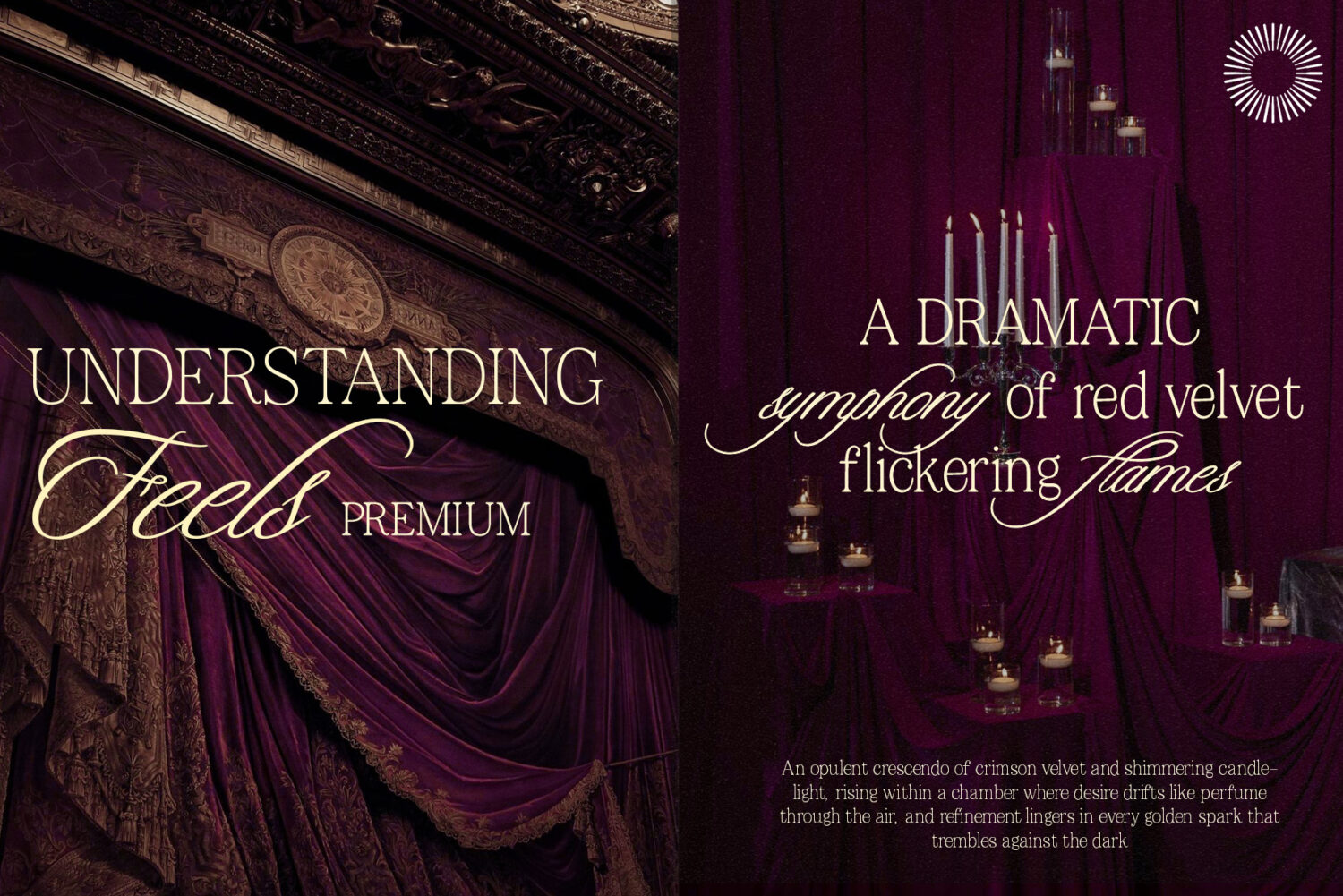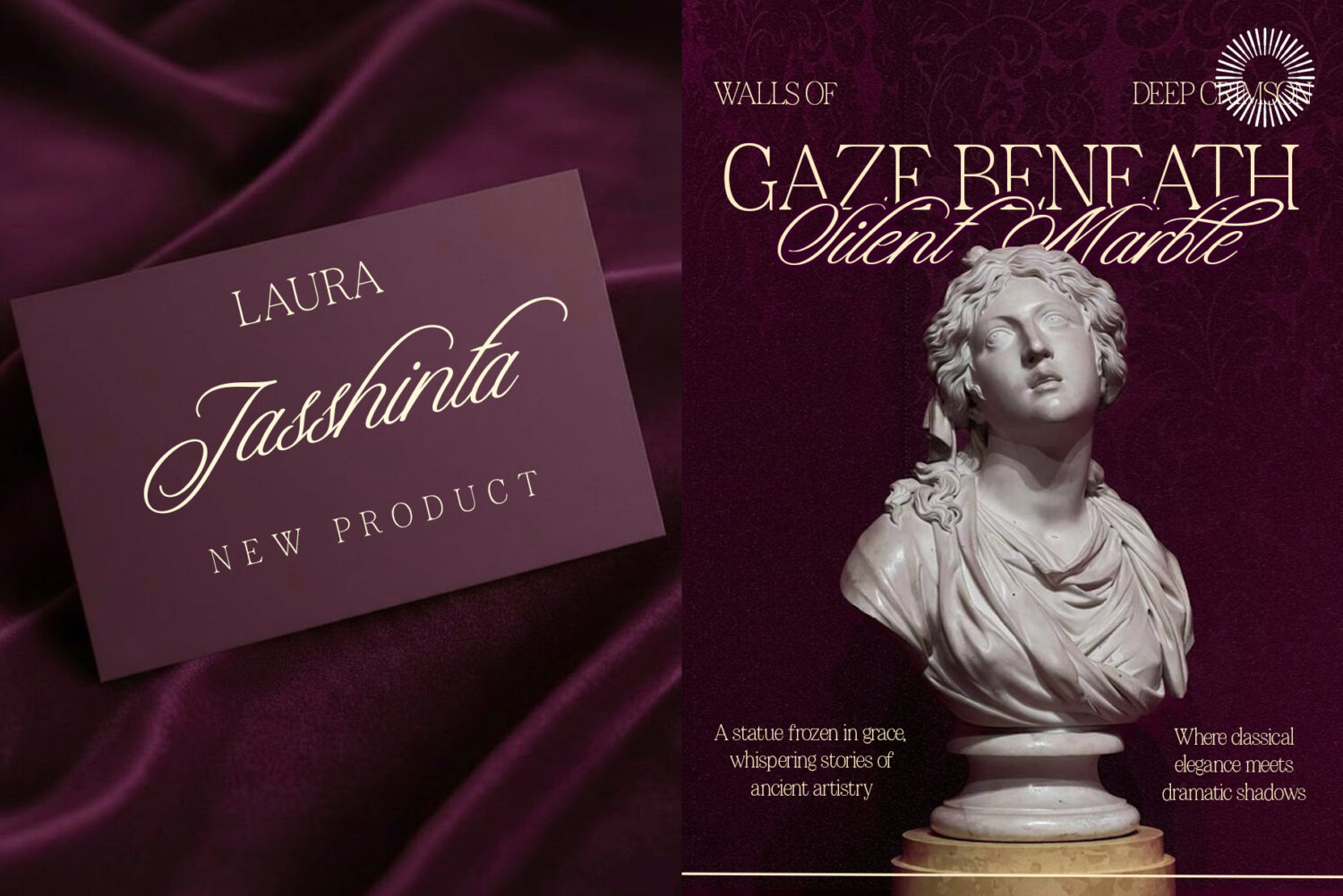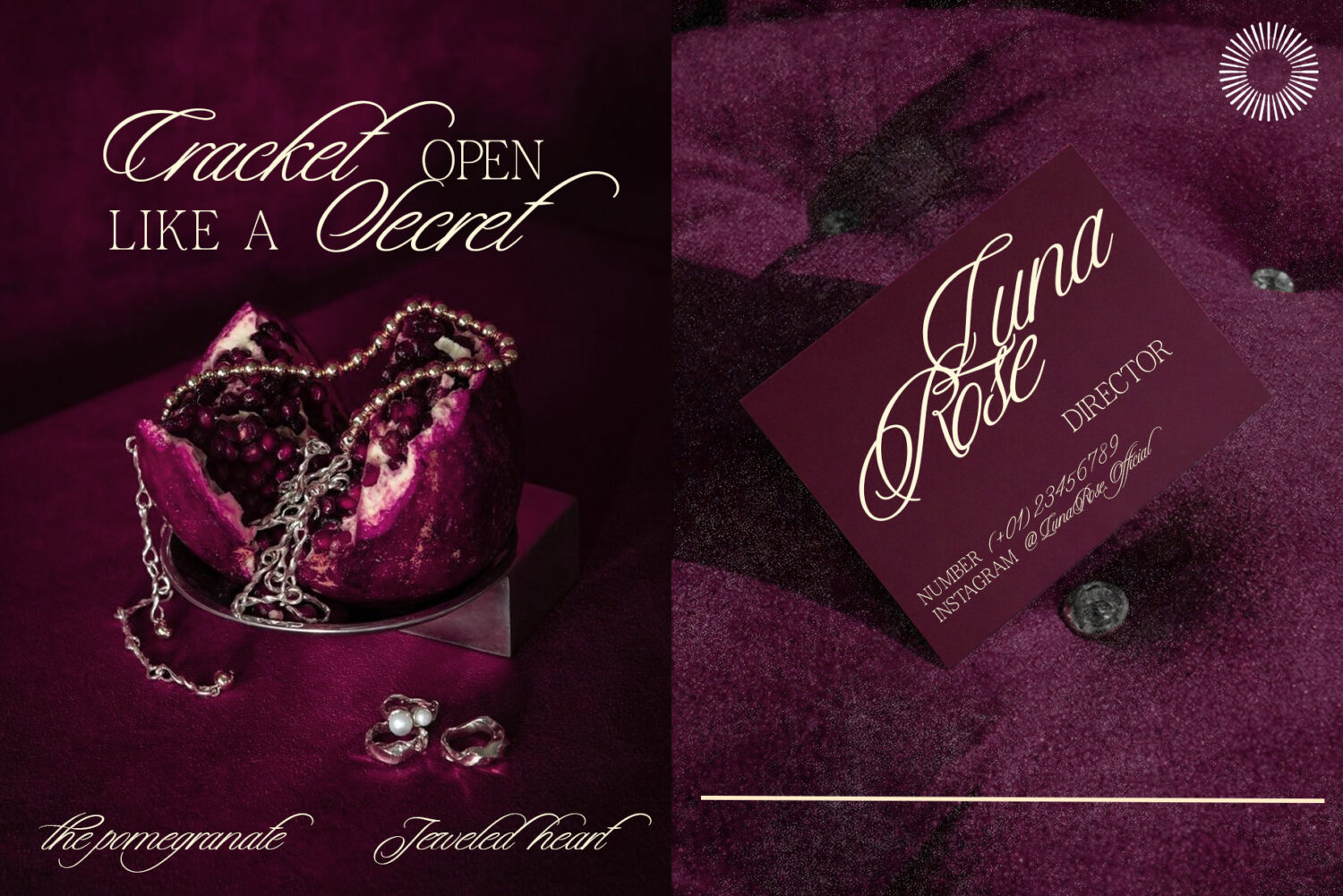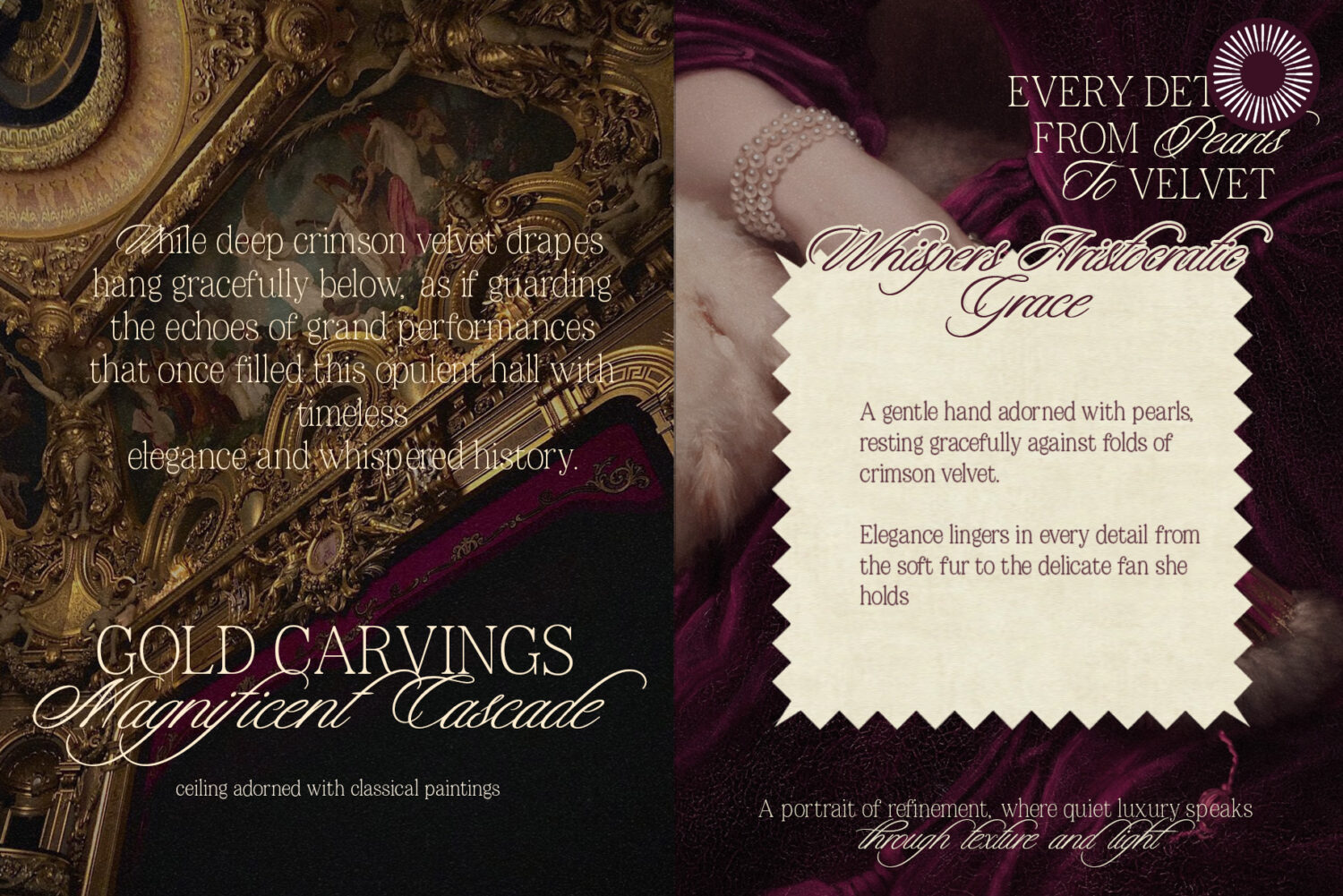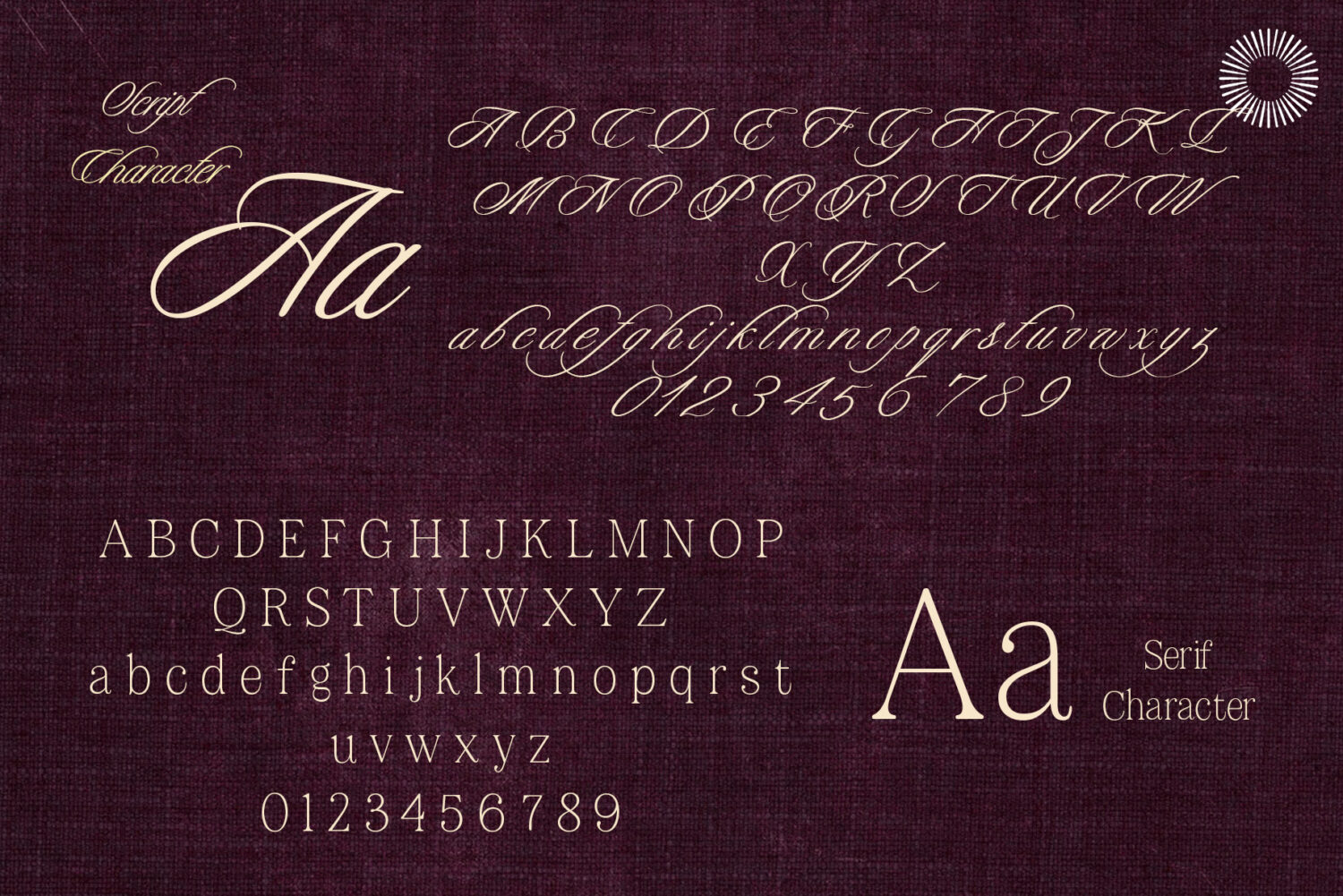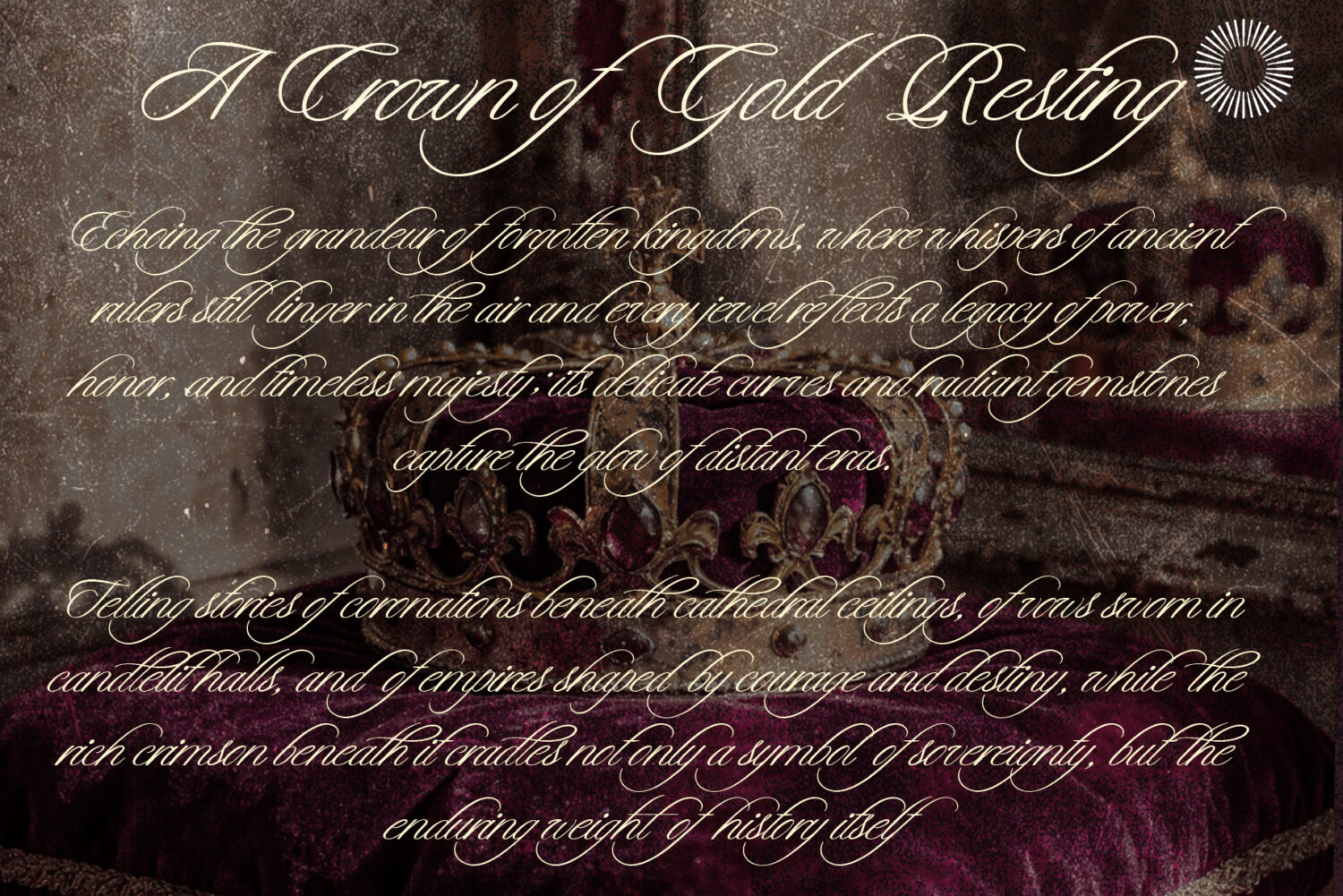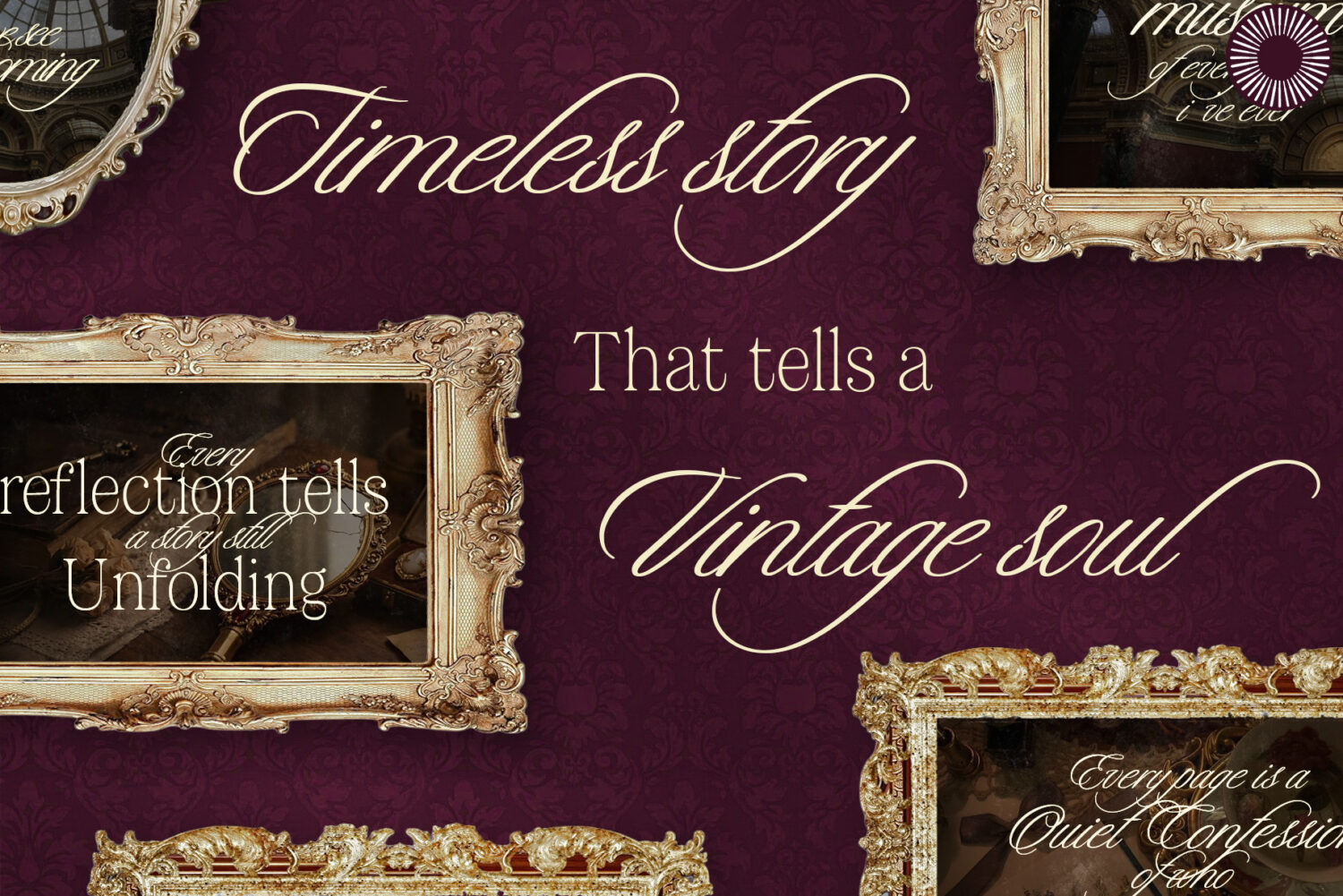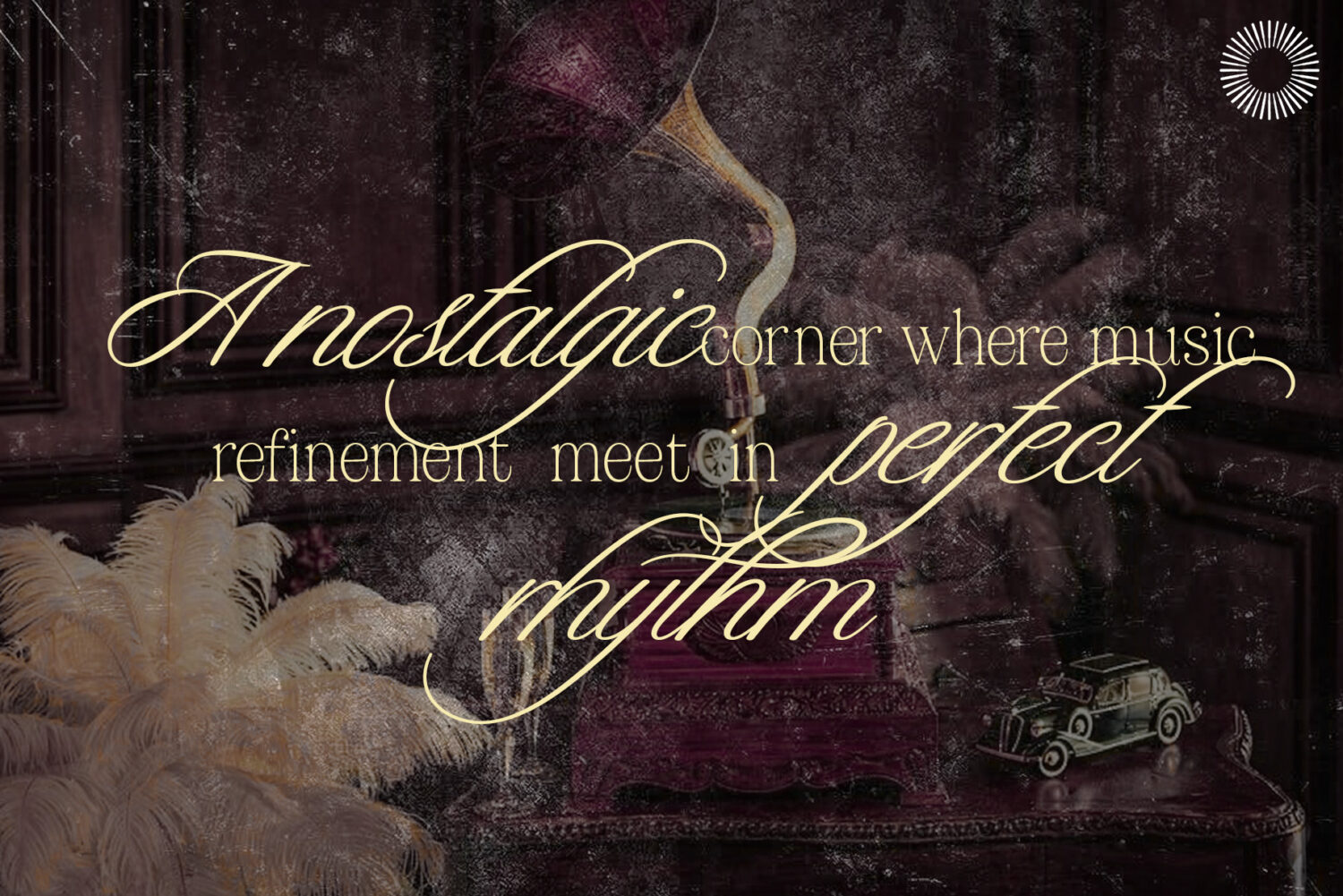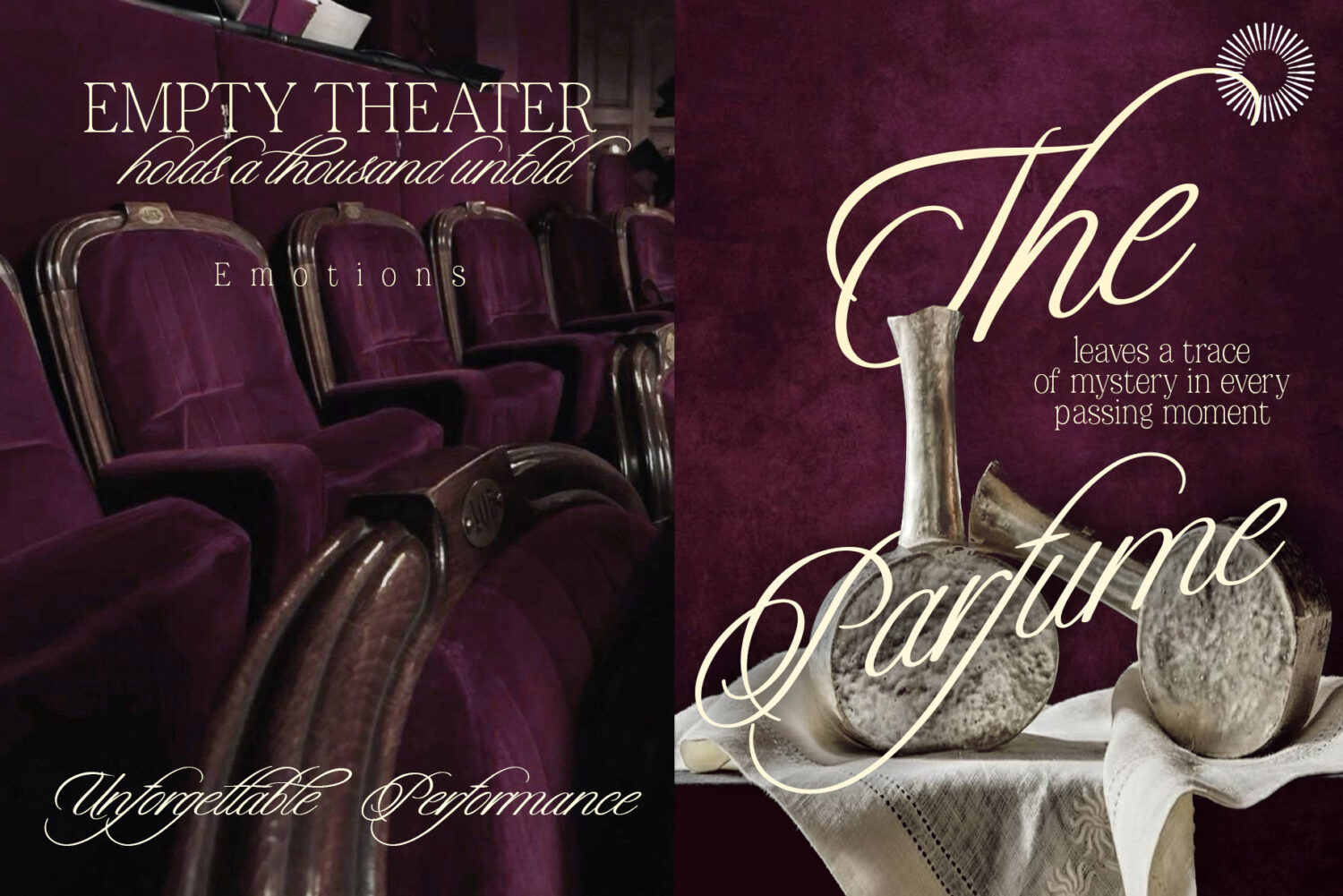
Virelle Essence - Script
Virelle Essence - Serif
Virelle Essence – Elegant Font Duo
Virelle Essence is a graceful font duo that blends a flowing handwritten script with a refined serif companion. Designed to capture warmth and timeless elegance, this pair creates a harmonious balance between expressive curves and structured letterforms. The script brings softness and personality, while the serif adds clarity and sophistication making them perfect together or beautiful on their own. Carefully crafted with attention to detail, Virelle Essence is ideal for designs that need a romantic, classic, and luxurious touch.
• Multilingual support
• Uppercase & lowercase
• Numerals & punctuation